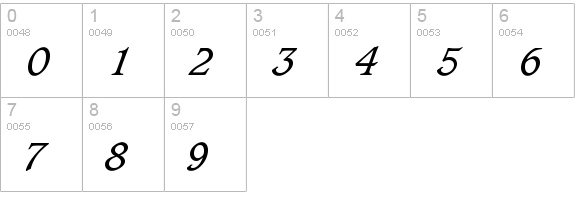
CaxtonIta Font Details
CaxtonIta font is a sophisticated and elegant typeface that exudes a timeless charm. Its classic yet modern design makes it perfect for a wide range of projects, from invitations to branding materials. The clean lines and balanced proportions of CaxtonIta font give it a sense of refinement and professionalism. What's even better is that CaxtonIta font is available for free download at FontsMarket.com. This means you can easily access this high-quality font without any cost, making it an excellent choice for designers and creatives looking for a versatile and stylish typeface. Don't miss out on the opportunity to enhance your projects with the beauty of CaxtonIta font – download it today and elevate your designs to the next level.